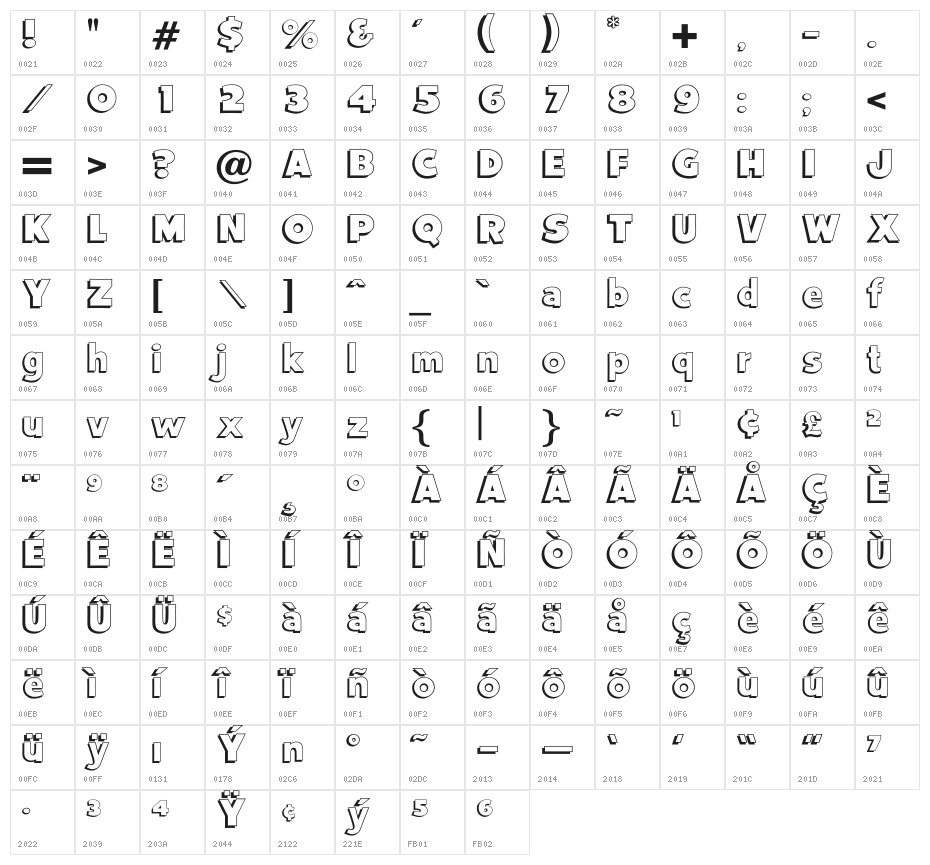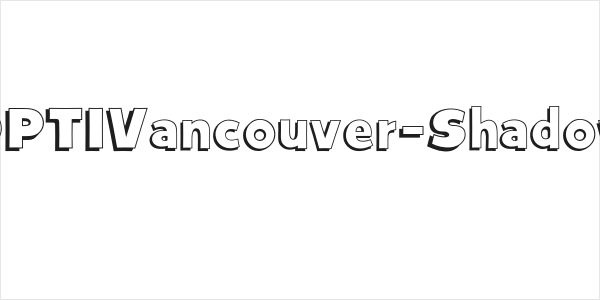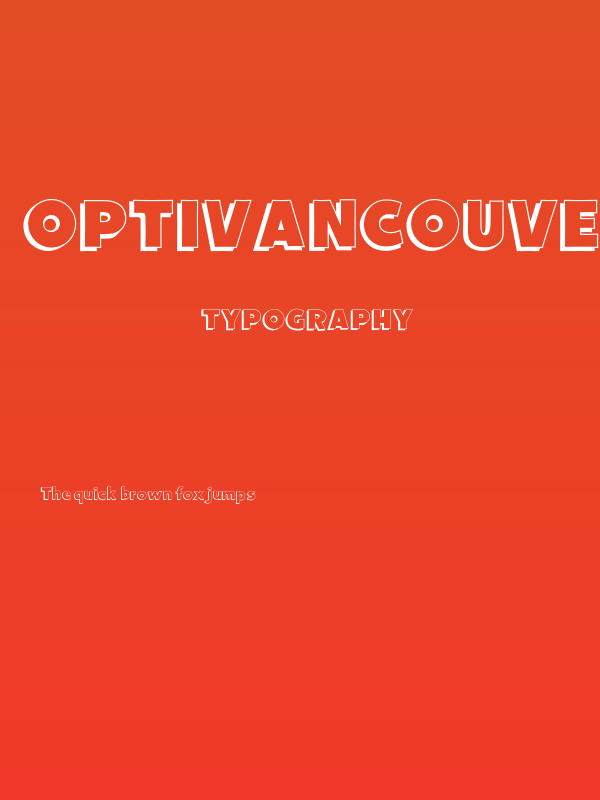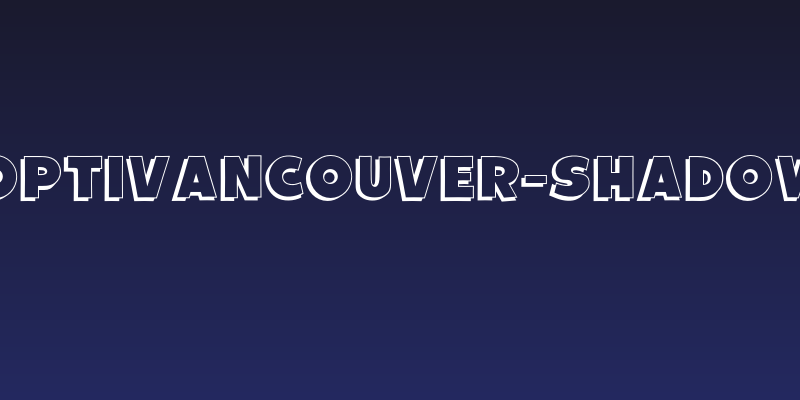
OPTIVancouver-Shadow Font
OPTIVancouver-Shadow Description
This font features a bold, shadowed style that gives each character a three-dimensional appearance. The uppercase and lowercase letters are designed with a strong, geometric form, emphasizing clarity and impact. The numbers and special characters maintain this bold aesthetic, ensuring consistency across all glyphs. The shadow effect adds depth, making it ideal for eye-catching designs. Its clean lines and structured form make it versatile for various applications, while the shadow adds a playful yet professional touch.
Proposed ProjectsIdeal for posters, headlines, logos, and any design requiring a bold statement.